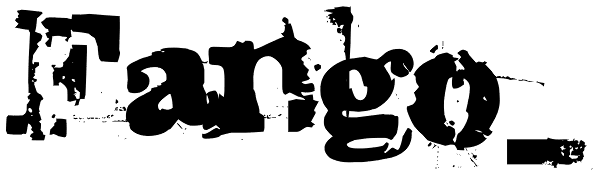
Fango
A heavy one. For major impact use it only in caps, however typing randomly upper and lower case has interesting results too. Play with it please.